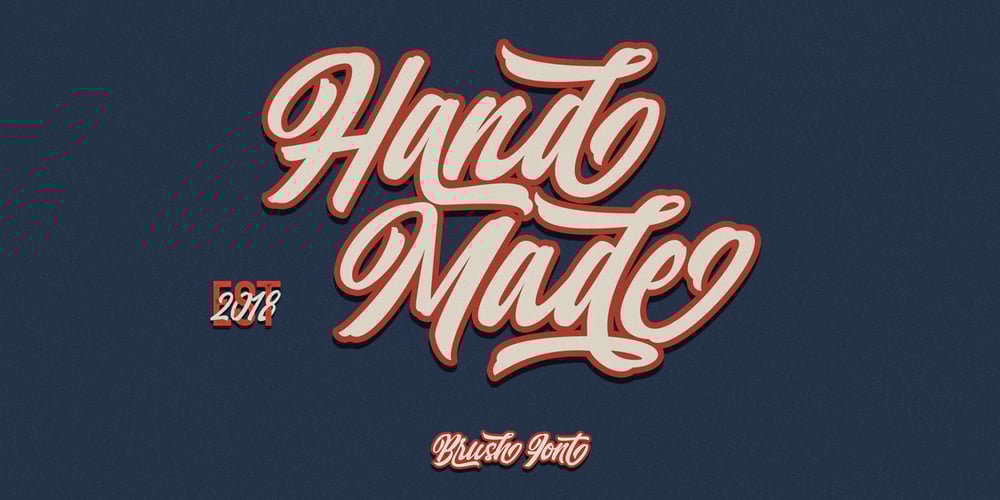
Qintan Script Font Family was designed by Haris Purnama Putra and published by Moovied Co.. Qintan Script contains 1 styles and family package options. Qintan Script is inspired by urban, streetwear and vintage design. It’s made with love! It’s a hand-lettering style. Ideal for branding, logos, handwriting quotes, product packaging, headers, posters, merchandise, social media Books / Cover titles, special events, and more. Features: – Basic Latin A-Z and a-z – Numbers – Symbols – Stylistic Set – Ligatures – PUA Encode – Multilanguage Support To enable the OpenType Stylistic alternates, you need a program that supports OpenType features such as Adobe Illustrator CS, Adobe Indesign & CorelDraw X6-X7. There are additional ways to access alternates, using Character Map (Windows), Nexus Font (Windows), Font Book (Mac) or a software program such as PopChar (for Windows and Mac).